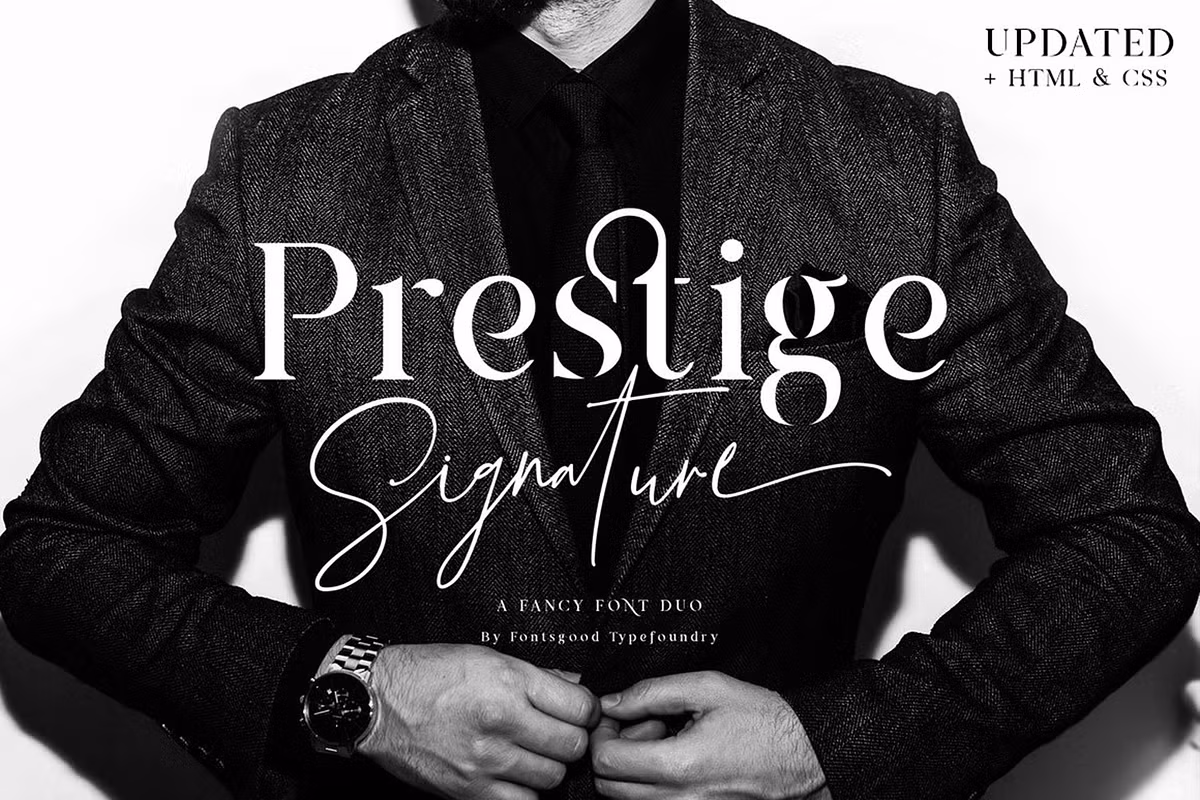
Please note, you must purchase this font for commercial use. However, you can easily download Prestige Signature Font - Serif & Script Free Download for personal use and testing purposes. Prestige Signature Font is a refined and sophisticated font duo that combines the elegance of a modern serif with a flowing script. Perfect for upscale branding, luxury invitations, editorial layouts, and more, this font duo offers a beautiful balance between classic and contemporary typography. The serif font brings structure and professionalism, while the script font adds a personal, artistic touch. Whether you're designing a luxury brand, an elegant event invitation, or a chic logo, Prestige Signature Font - Serif & Script Free Download will bring sophistication and style to your project. Download Prestige Signature Font - Serif & Script Free Download today and explore its potential before opting for a commercial license.